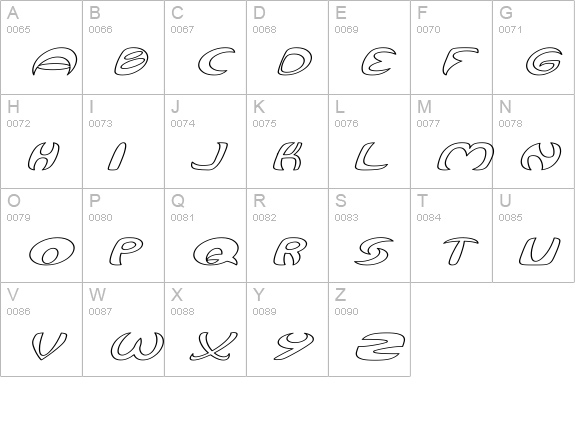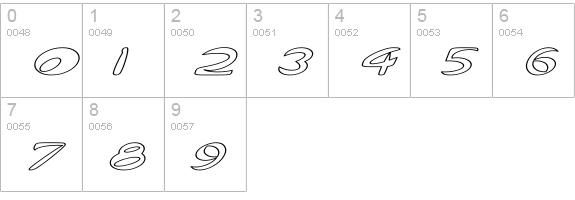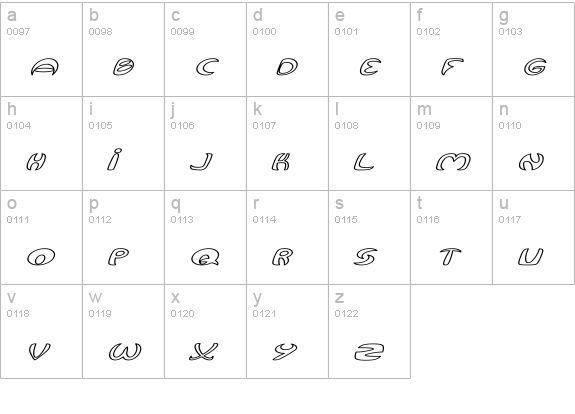
Qurve Hollow Wide Italic Font Details
Qurve Hollow Wide Italic is a distinctive, extended-width, italic variant in the Qurve typeface family \xE2\x80\x94 well suited to design and typography projects.
Introducing Qurve Hollow Wide Italic, a stunning and versatile display font that will effortlessly elevate your designs to new heights. This modern and edgy typeface boasts a unique blend of smooth curves and sharp edges, creating a visually captivating look that is sure to make a lasting impression. With its wide and bold letterforms, Qurve Hollow Wide Italic is perfect for headlines, logos, posters, and any other project that requires a strong and impactful typographic presence. The italicized style adds a touch of elegance and dynamism, adding a sense of movement to your designs. What sets Qurve Hollow Wide Italic apart is its incredible versatility. Whether you're designing for a fashion brand, a tech startup, or a creative agency, this font will adapt effortlessly to any concept or theme you have in mind. Its bold and modern aesthetic makes it an ideal choice for projects that demand attention and demand to be noticed. But what truly sets Qurve Hollow Wide Italic apart is that it is freely available to download at FontsMarket.com. Yes, you read that right - this exceptional font can be yours without any cost or strings attached. FontsMarket.com, a reputable and trusted source for high-quality fonts, is proud to offer Qurve Hollow Wide Italic as a free download, ensuring that designers and creatives from all walks of life can access this gem and bring their visions to life. So why wait? Download Qurve Hollow Wide Italic today and experience the power of this stunning font for yourself. Whether you're a seasoned designer or just starting out on your creative journey, Qurve Hollow Wide Italic is a must-have in your font collection. Its boldness, elegance, and free availability make it a true gem that will effortlessly elevate any design project.